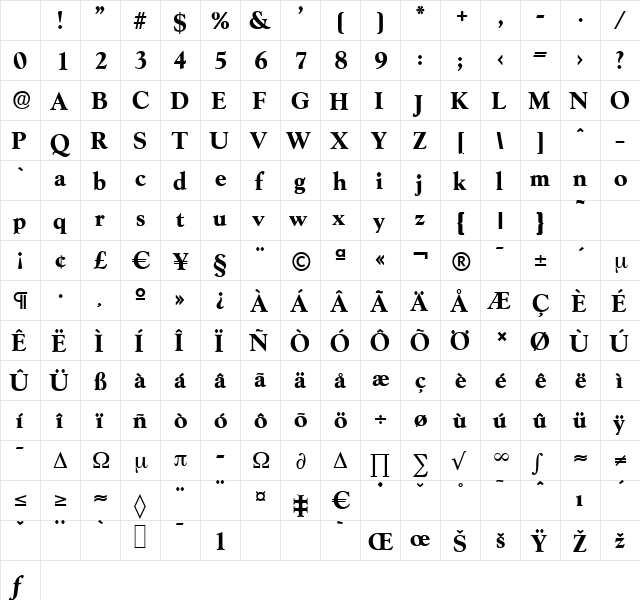
GoudySerial-Xbold is a composed and adaptable typeface that performs quietly and consistently across a wide range of design contexts. Its bold stroke weight gives it real presence on the page.